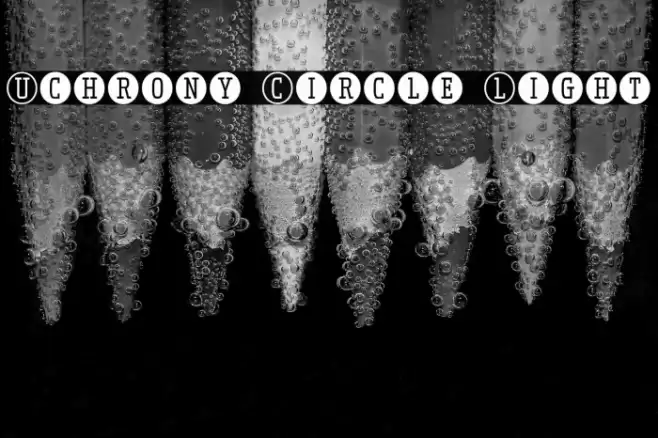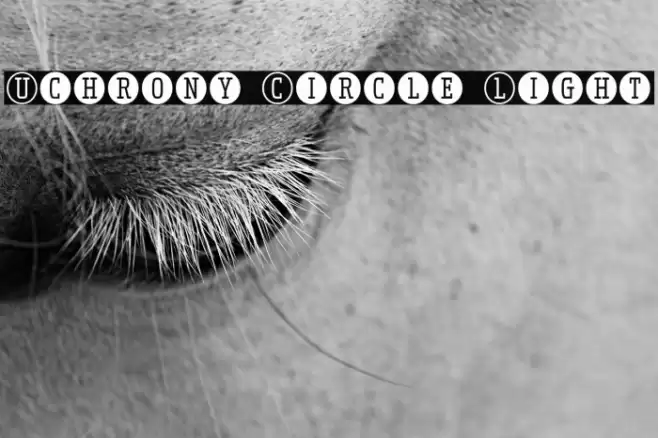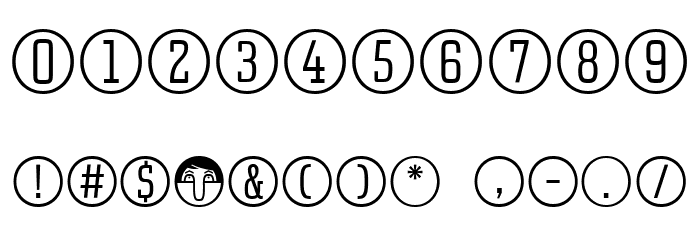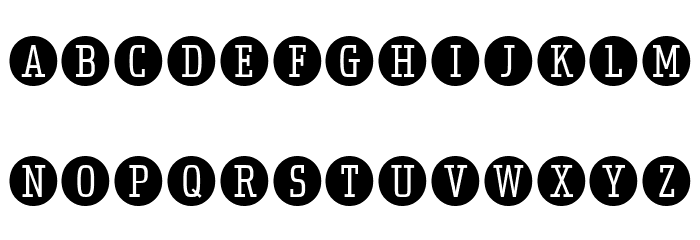
Uchrony Circle Light Font
Uchrony Circle Light Description
This font features a distinctive style where each character is enclosed within a circle, creating a unique and eye-catching appearance. The uppercase letters are bold and prominent, while the lowercase letters maintain a consistent style, offering a harmonious balance. The numerals and special characters are also encased in circles, ensuring uniformity across all glyphs. This design choice gives the font a playful yet structured look, making it suitable for various creative applications. The overall aesthetic is modern and decorative, with a touch of whimsy due to the circular enclosures. The font's clean lines and geometric shapes contribute to its readability, even within the constraints of the circular design.
A modern, decorative font with characters enclosed in circles, offering a playful yet structured look from Decorative fonts.
- Proposed Projects: Ideal for creative projects such as posters, logos, branding, and packaging where a unique and modern aesthetic is desired.
- Overall Style: Modern, Decorative